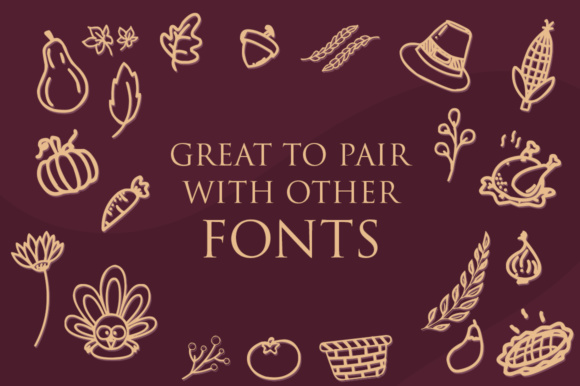
This full of thanksgiving-theme doodles font is great choice to mix and match with your other fonts and designs! Make your own personalized cards, merchandises, t-shirts, and much more. Just simply use this set of doodles and get prepare for your warm moments!